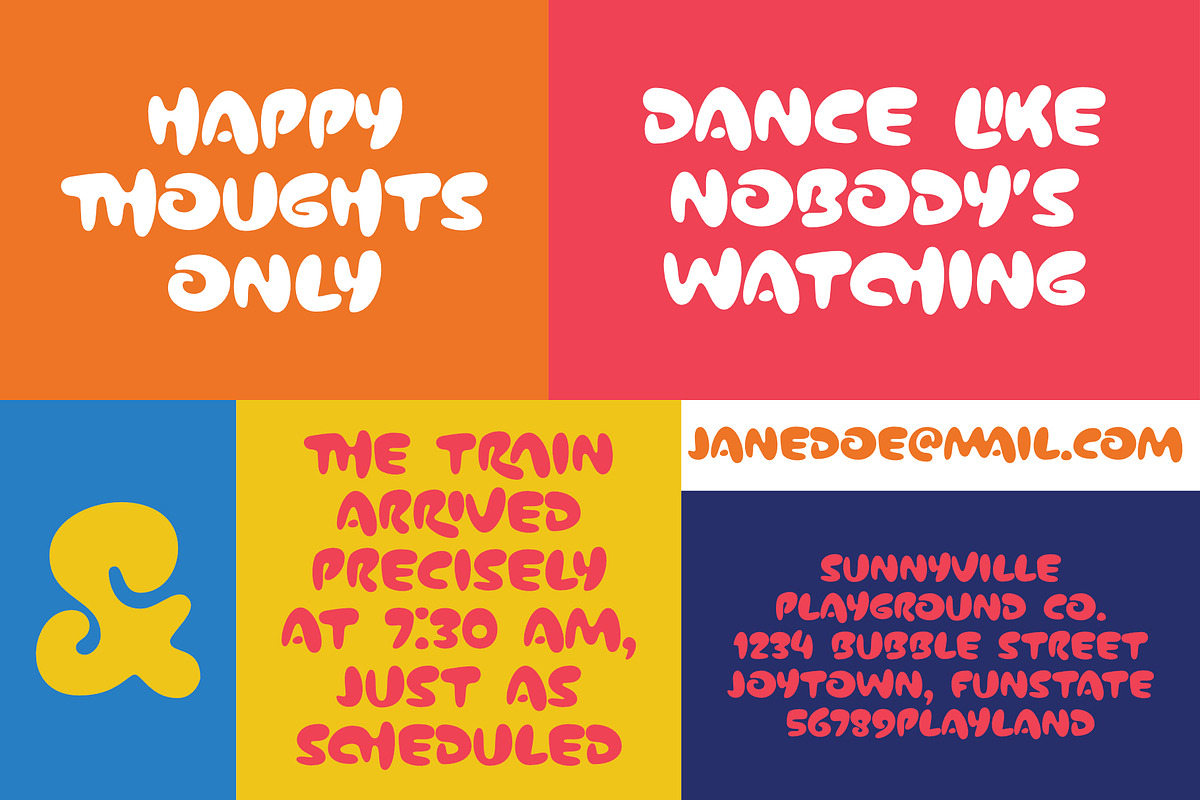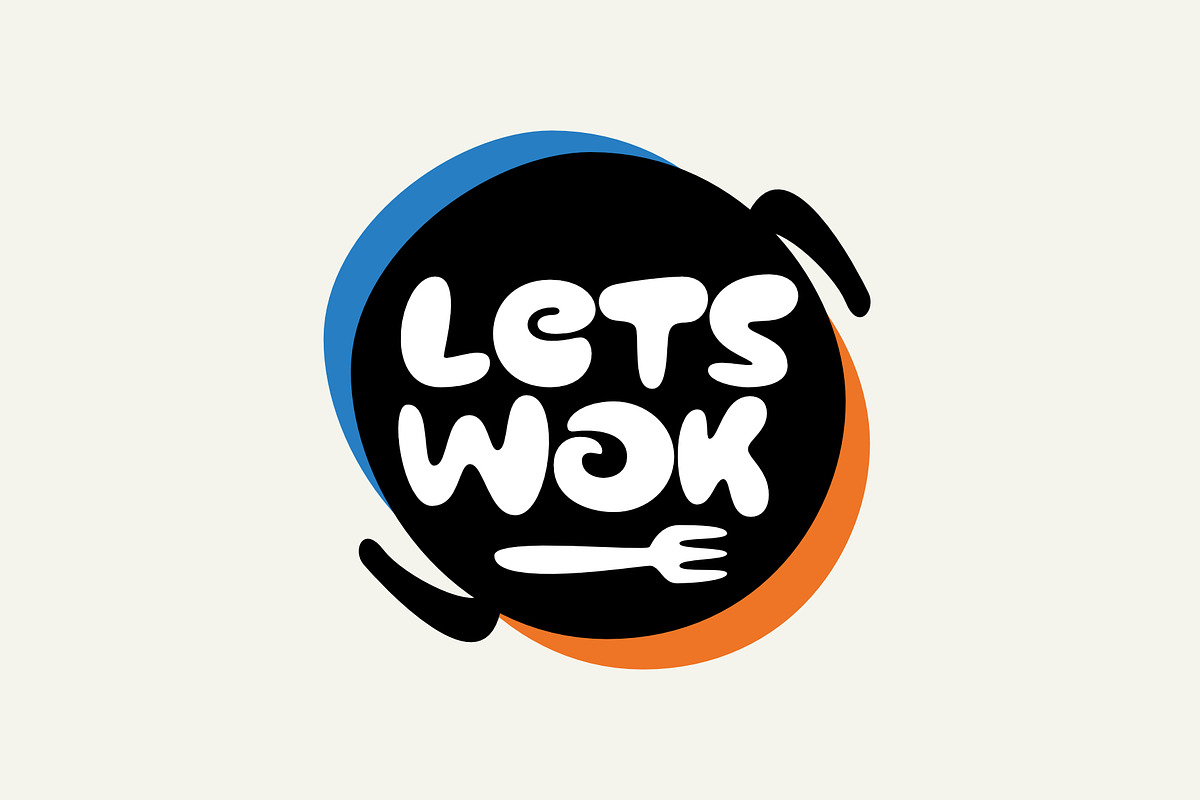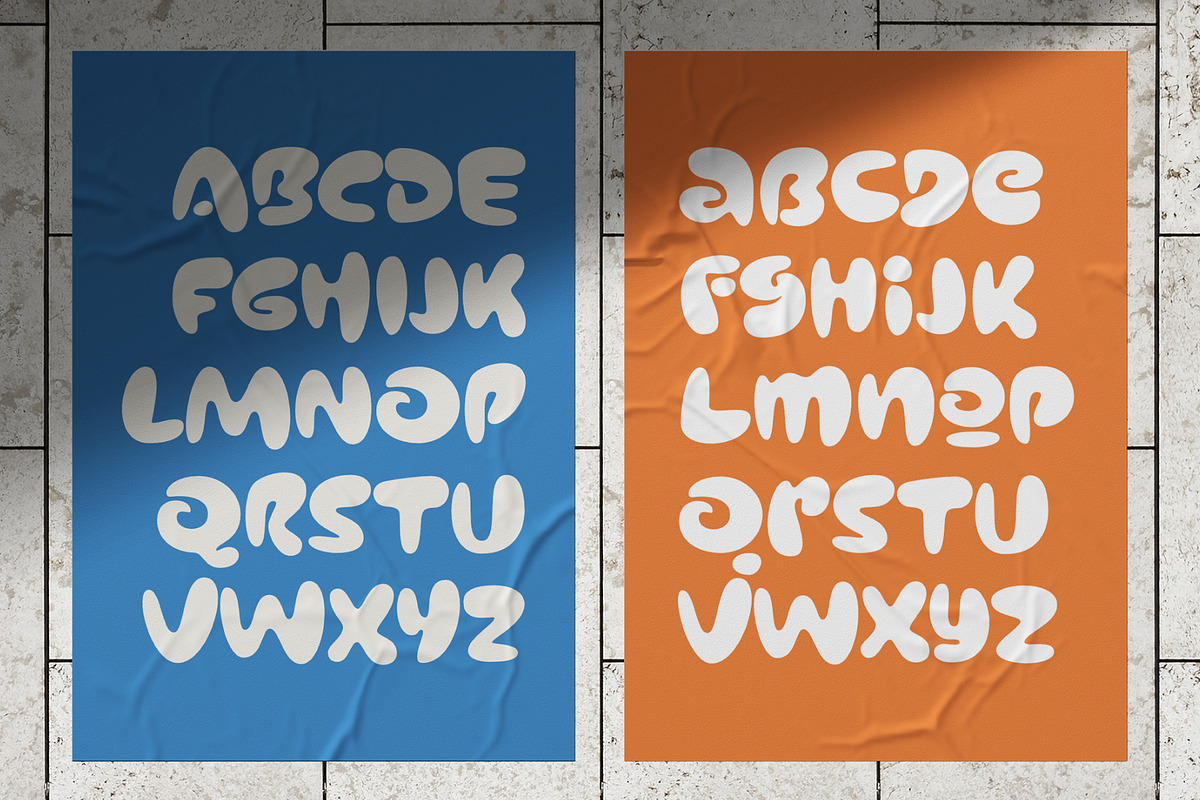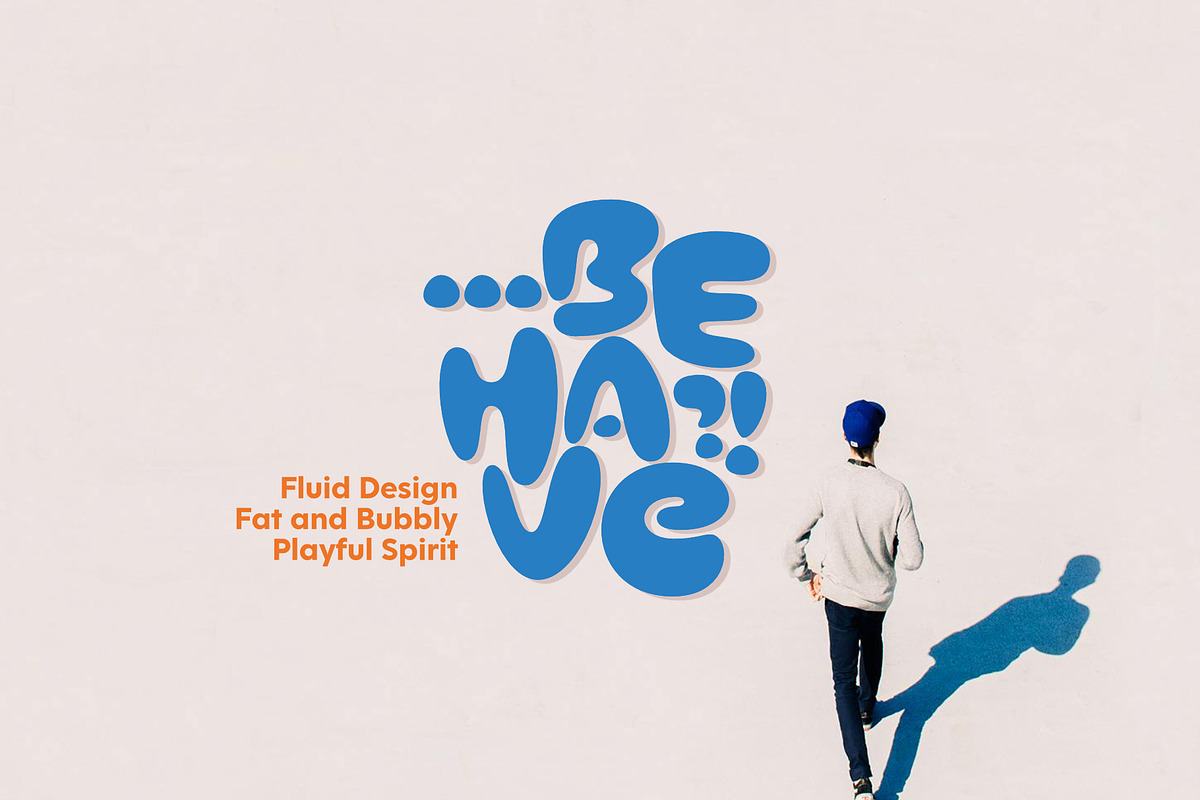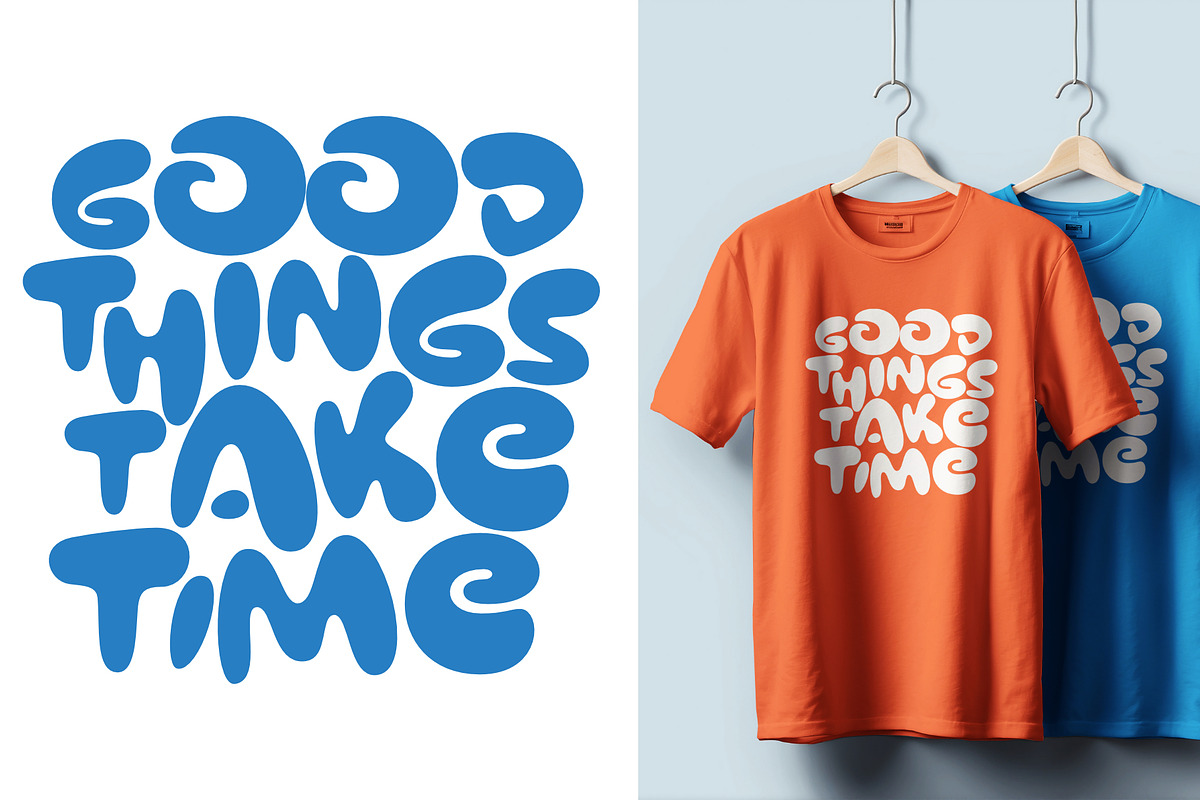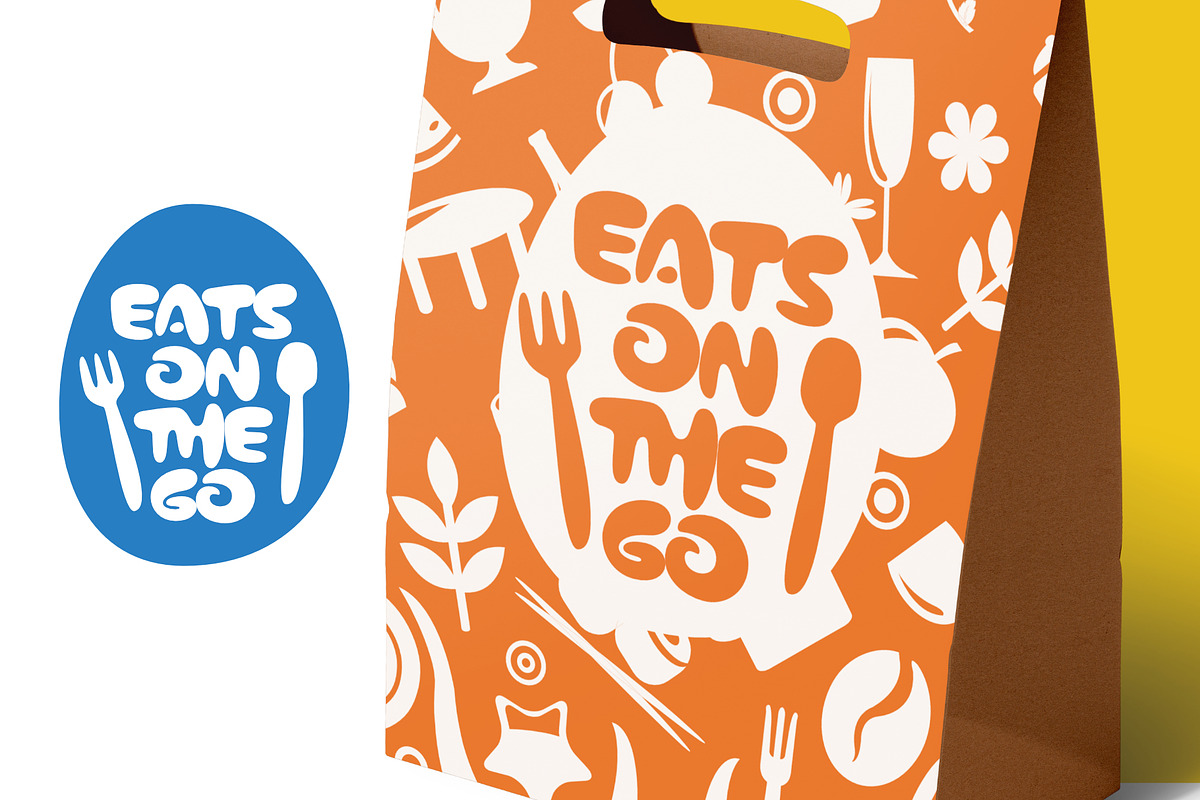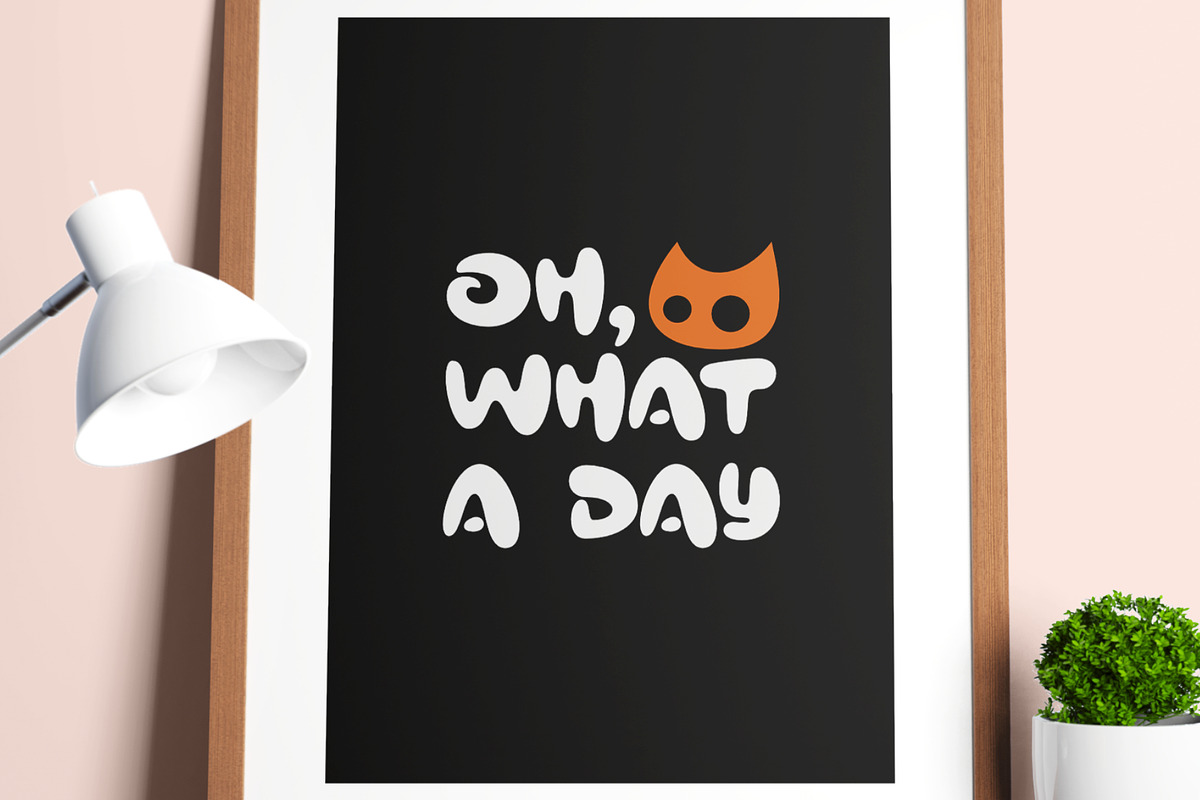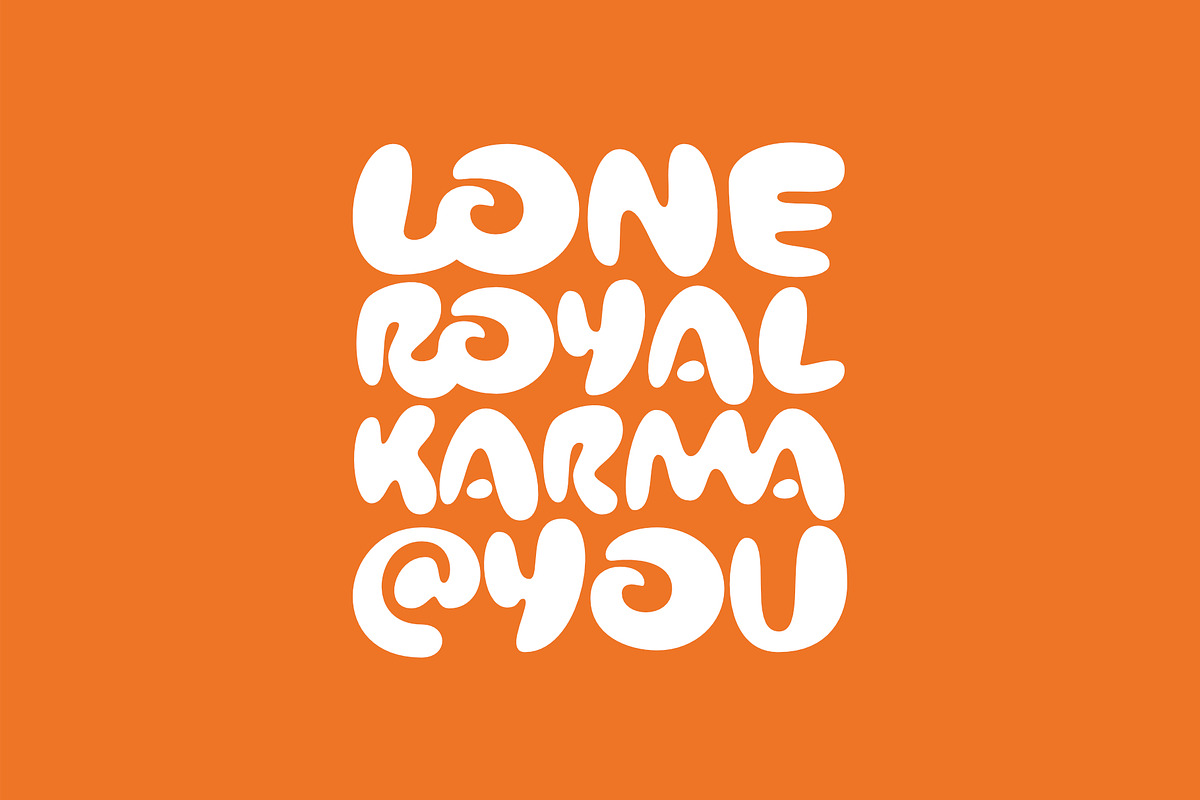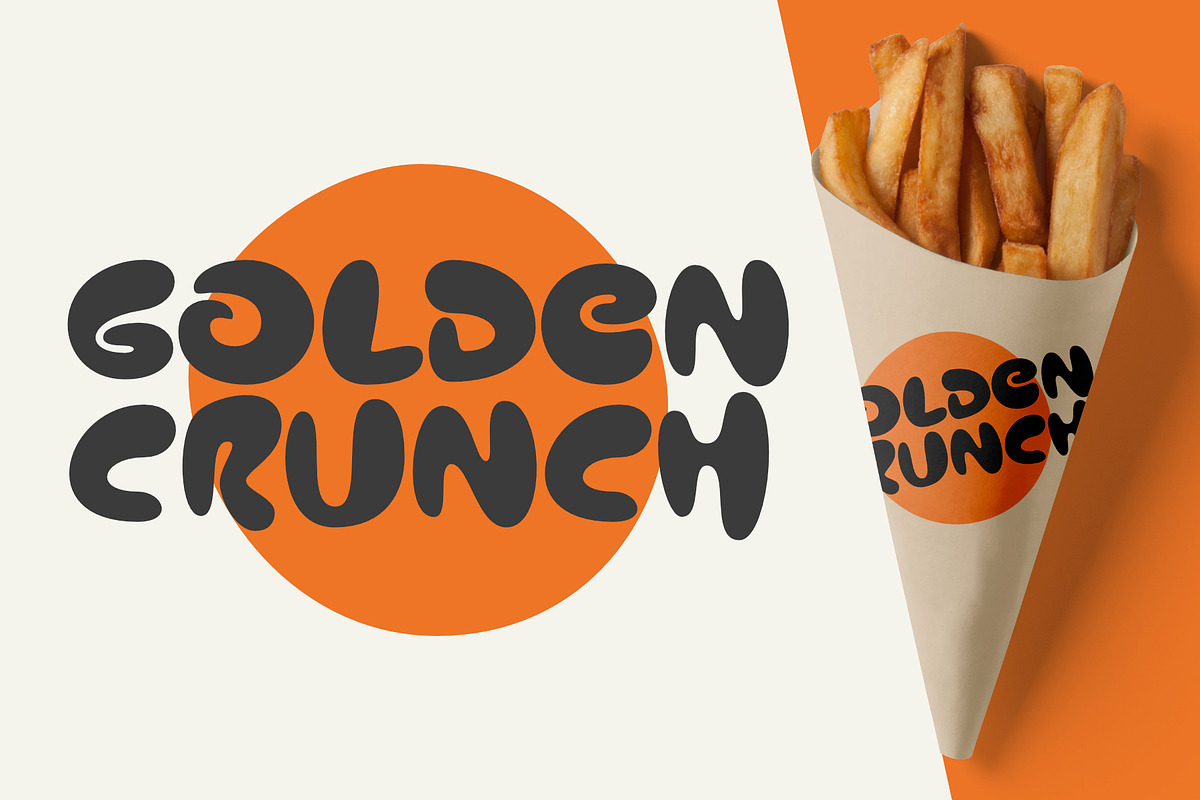
Behave
Behave is a delightful and vibrant typeface that exudes an aura of fluidity and whimsy. Its plump, rounded characters are reminiscent of playful bubbles, making it perfect for projects that need a touch of joy and liveliness. The smooth, curvy lines flow seamlessly, giving the font a dynamic and energetic feel. Behave is not just a font; it's a celebration of fun and creativity, ideal for children's books, playful branding, and any design that seeks to capture the essence of lightheartedness.